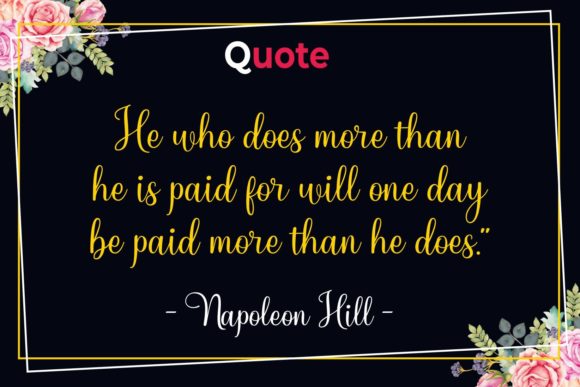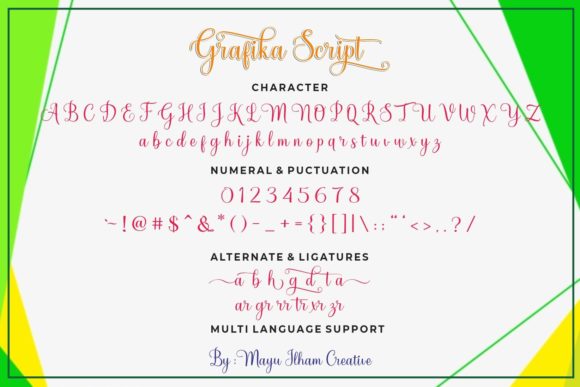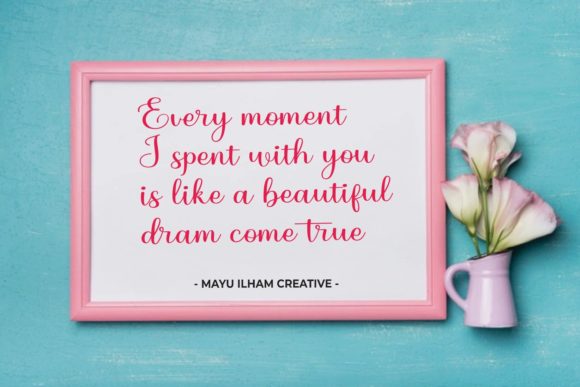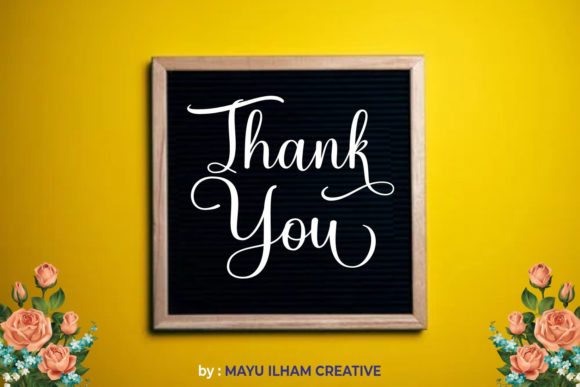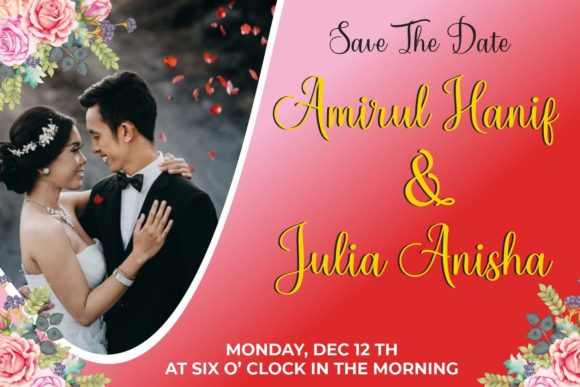
About Grafika Script Font
Grafika Script feels equally charming and elegant. It will add a luxury spark to any design project that you wish to create! This font is PUA encoded which means you can access all of the amazing glyphs and ligatures with ease!